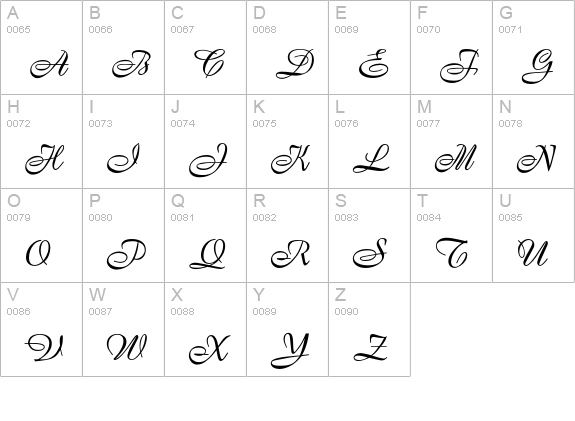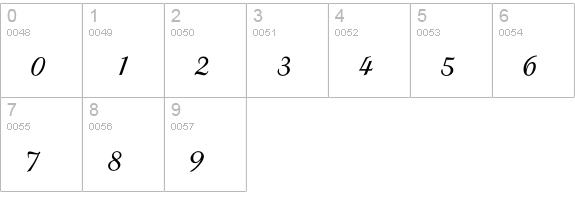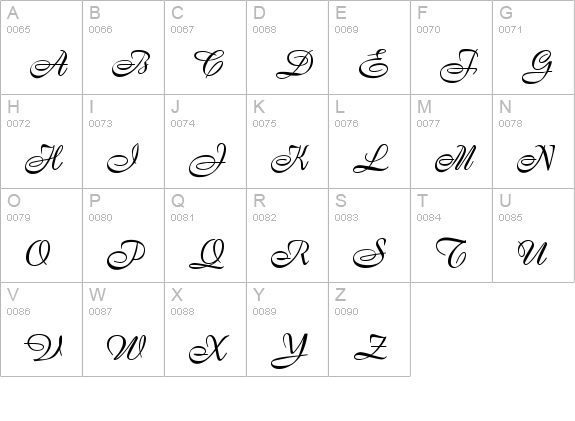
Francis font is a stylish and elegant typeface that exudes sophistication and charm. Its smooth lines and graceful curves make it perfect for a wide range of design projects, from logos to wedding invitations. The versatility of Francis font allows it to be used in both formal and casual settings, adding a touch of class to any design. What sets Francis font apart is not only its beauty but also the fact that it is completely free to download. That's right, you can get your hands on this exquisite font without spending a dime! Simply head over to FontsMarket.com to access this lovely typeface and elevate your designs to a whole new level. Don't miss out on the opportunity to enhance your projects with the timeless beauty of Francis font, available for free download now.